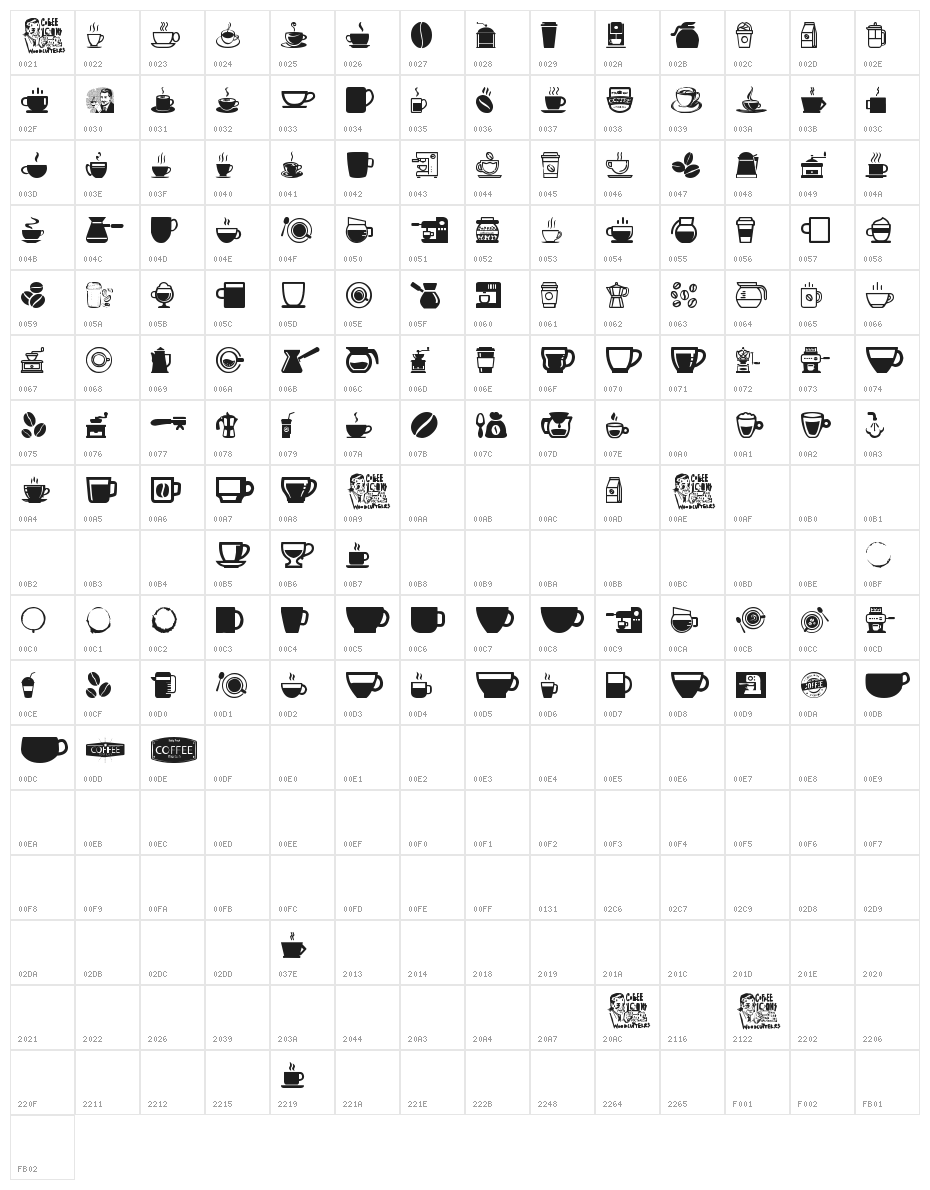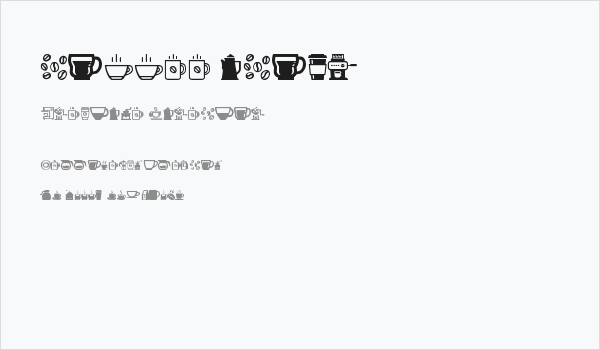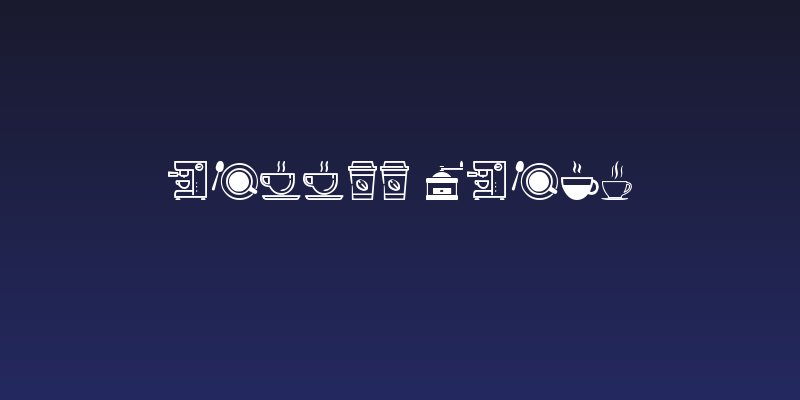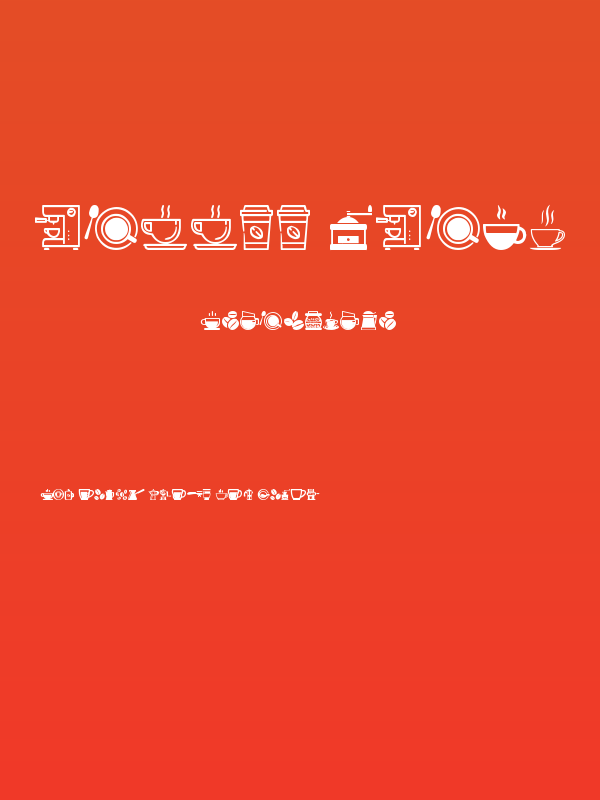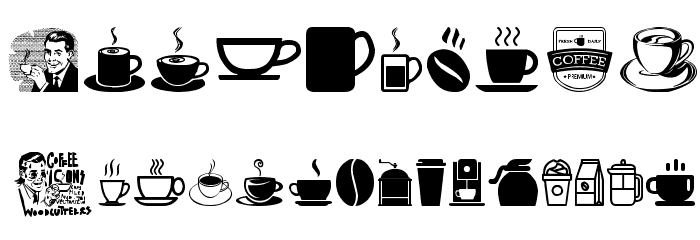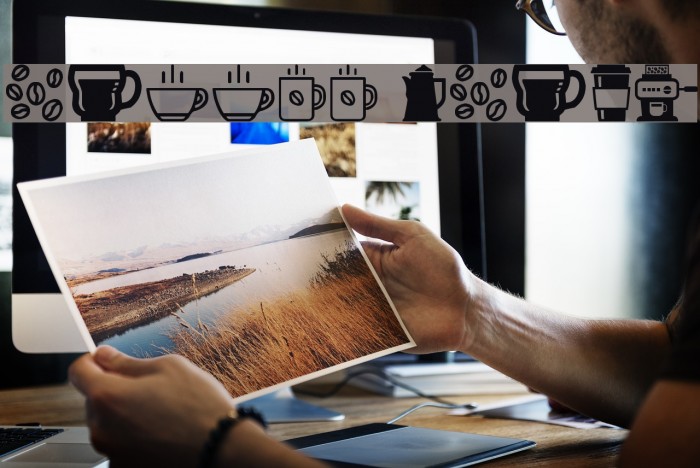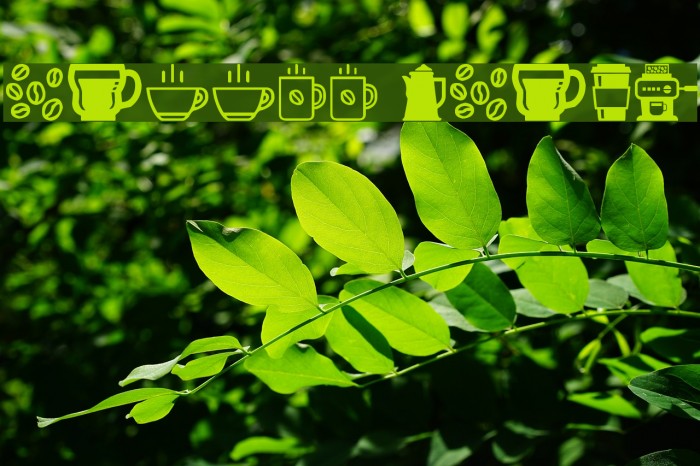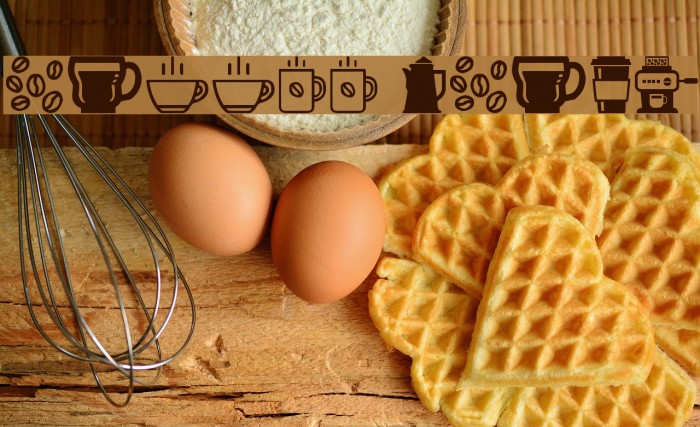
coffee icons Font
coffee icons Description
A decorative icon set featuring a wide variety of coffee-related imagery, including cups, mugs, beans, coffee makers, grinders, and barista equipment, rendered in bold, high-contrast black silhouettes with playful and illustrative details.
| Overall Style | Decorative, Playful, Thematic |
| Use Case | Icons, Logos, Signage, Packaging, Social Media |
| Proposed Projects | Perfect for café branding, menu design, coffee shop signage, packaging, social media graphics, and themed event materials. |